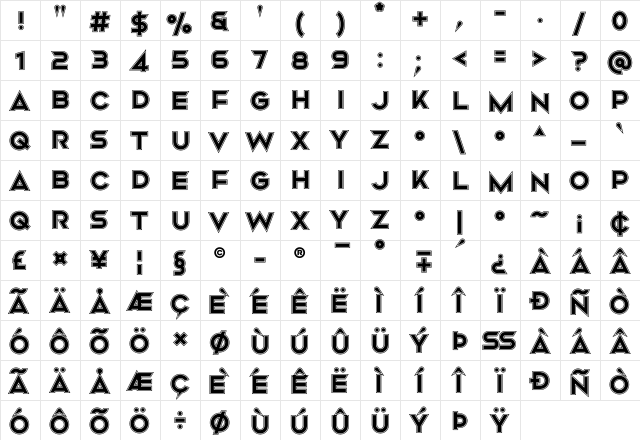
Mismo Campus
| Foundry | High-Logic / Made with FontCreator |
| Designer | J鳯n Garnica |
Design Context for Mismo Typeface
Mismo takes a measured approach to typography — its balanced proportions and neutral character make it a reliable workhorse for both digital and print work.